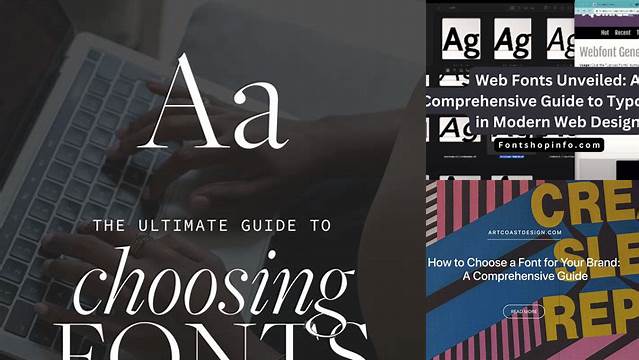
Website Fonts: The Ultimate Guide For 2024
Choosing the right fonts for your website is crucial for creating an engaging and effective online presence. The fonts you select can significantly impact readability, user experience, and the overall aesthetic appeal of your site. In this comprehensive guide, we'll explore everything you need to know about selecting and implementing fonts for websites, ensuring your site looks professional and captivates your audience.
Understanding the Basics of Web Fonts
When it comes to web fonts, understanding the fundamentals is key to making informed decisions. Unlike print design, where you have direct control over the fonts displayed, web fonts need to be accessible and render correctly across various browsers and devices. This section will cover essential aspects such as font formats, licensing, and performance considerations.
Performance Considerations: Loading Times and Optimization
Website performance is significantly influenced by the fonts you use. Large font files can slow down your website, leading to a poor user experience. Here are some tips to optimize font performance:
- Use WOFF2: As mentioned earlier, WOFF2 offers the best compression, reducing file sizes.
- Subset Fonts: Only include the characters you need. Many fonts contain a vast character set, but if you only need a subset (e.g., basic Latin characters), you can reduce the file size by removing unnecessary characters.
- Use a CDN: Content Delivery Networks (CDNs) can serve font files from servers located closer to your users, reducing latency.
- Limit the Number of Fonts: Using too many different fonts can increase the number of HTTP requests and slow down your site. Stick to a maximum of two or three fonts.
- Consider System Fonts: System fonts are pre-installed on users' devices, eliminating the need to download font files. However, they may not offer the same aesthetic appeal as custom fonts.
By optimizing your website fonts, you can improve loading times, enhance user experience, and boost your site's overall performance. Always prioritize speed and efficiency when selecting and implementing fonts.
Choosing the Right Fonts for Your Website
Selecting the right fonts for your website involves balancing aesthetics, readability, and brand identity. The fonts you choose should not only look good but also enhance the user experience and reflect your brand's personality. Here are some key factors to consider:
Readability: Ensuring Comfortable Reading Experience
Conclusion: Mastering Fonts for Websites
Choosing and implementing the right fonts for websites is essential for creating an engaging and effective online presence. By understanding the basics of web fonts, selecting fonts that align with your brand, and optimizing font performance, you can create a website that looks professional, enhances user experience, and captivates your audience. Whether you choose Google Fonts, self-hosting, or a font service, make sure to prioritize readability, brand identity, and performance. With careful planning and attention to detail, you can master the art of fonts for websites and create a stunning online presence.